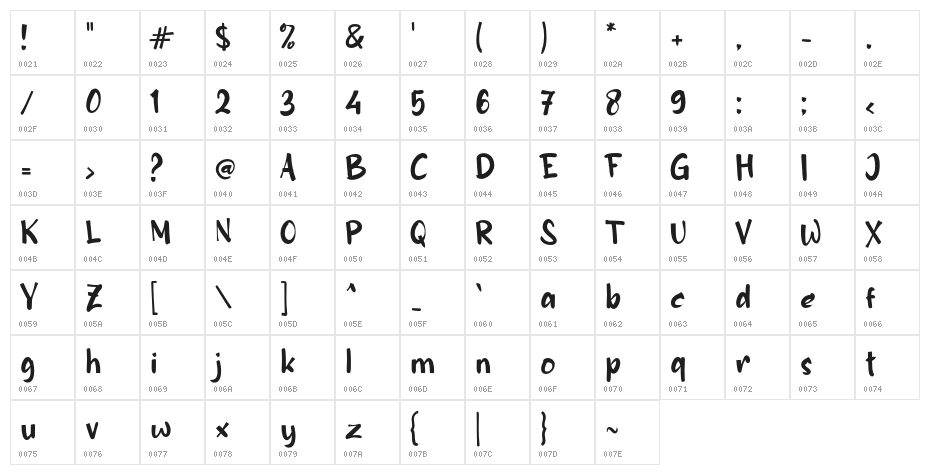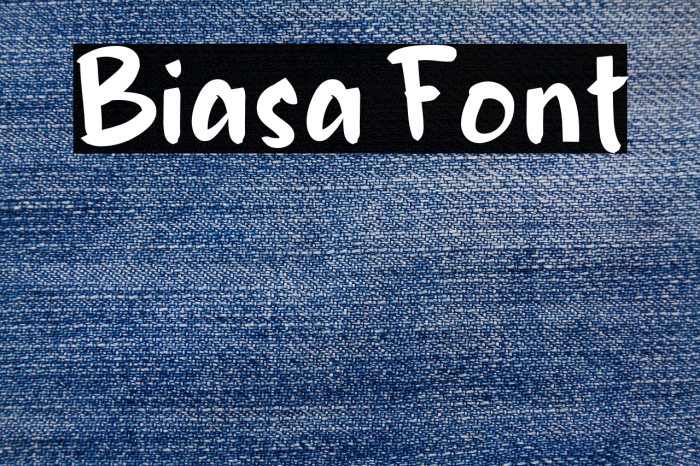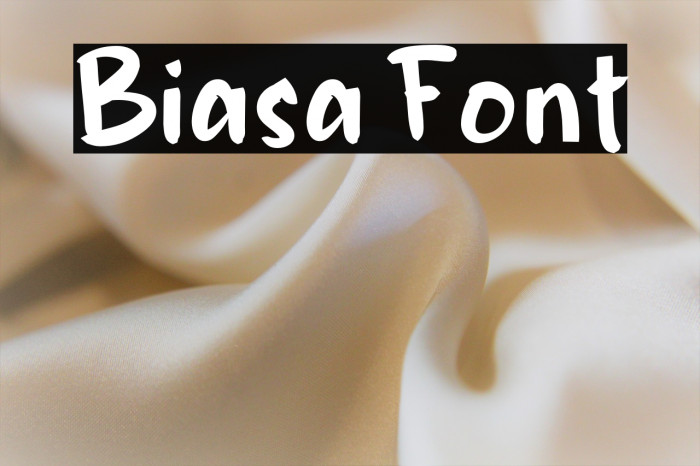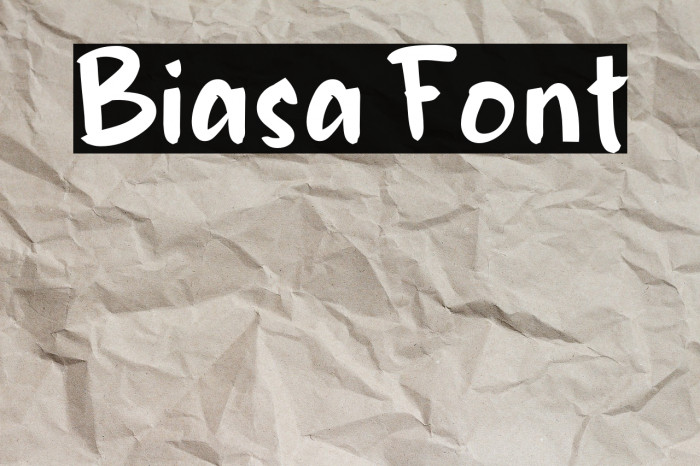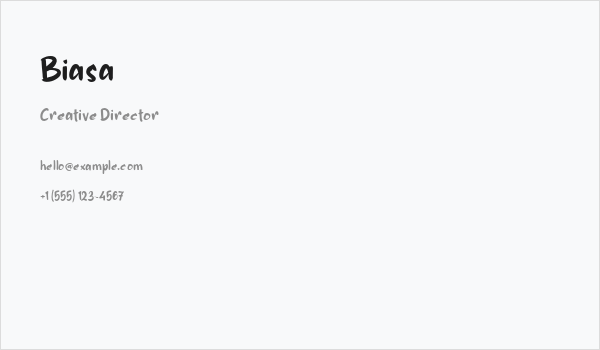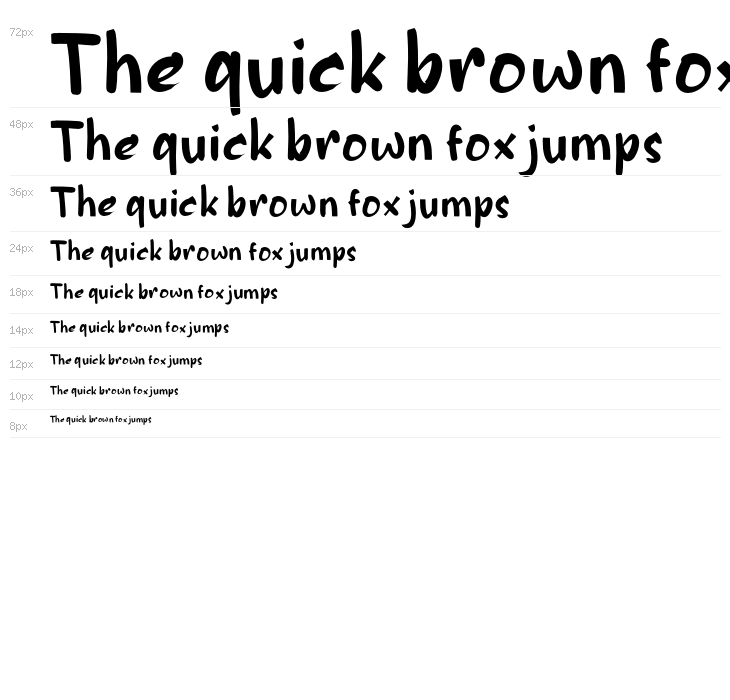
Biasa Font
Biasa Description
This font features a playful and casual handwritten style, characterized by its bold and slightly irregular strokes. The letters have a lively and dynamic appearance, with a slight tilt that adds to the informal feel. The uppercase and lowercase letters maintain a consistent style, with rounded edges and a friendly demeanor. The numerals and special characters are equally expressive, making this font suitable for projects that require a personal touch. Its boldness ensures readability while the unique character shapes add personality.
| Proposed Projects | Ideal for greeting cards, children's books, playful branding, and social media graphics. |